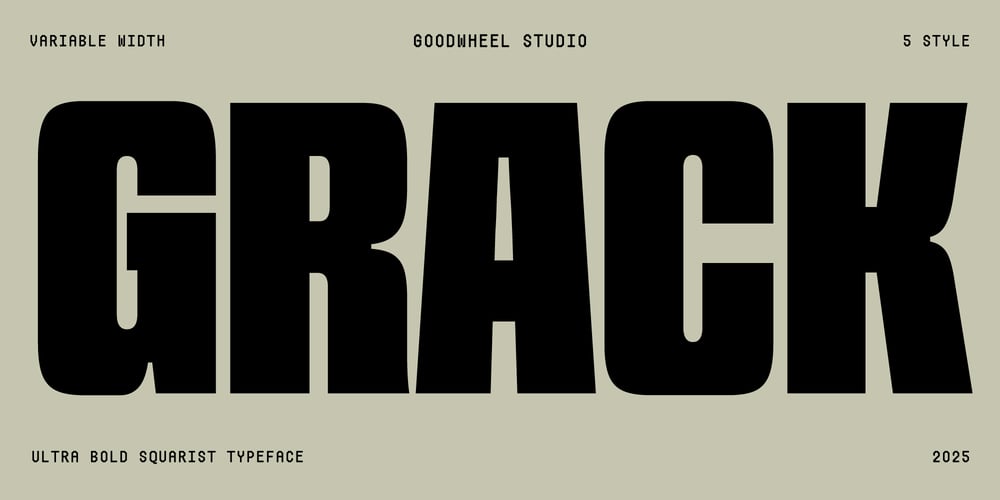
GW Grack
GW Grack font
GW Grack Font Family was designed by Ilham Herry and published by Goodwheel Studio. GW Grack contains 6 styles and family package options. Ultrabold Squarist typefaces with variable width compress to regular. a typeface with a bold and modern design, featuring very thick characters and rigid geometric shapes.Character set : Windows 1252Languages support AfrikaansAlbanianAsuBasqueBembaBenaBretonCatalanChigaCornishDanishDutchEnglishEstonianFaroeseFilipinoFinnishFrenchFriulianGalicianGermanGusiiIcelandicIndonesianIrishItalianKabuverdianuKalenjinKinyarwandaLuoLuxembourgishLuyiaMachameMakhuwa-MeettoMakondeMalagasyManxMorisyenNorth NdebeleNorwegian BokmålNorwegian NynorskNyankoleOromoPortugueseQuechuaRomanshRomboRundiRwaSamburuSangoSanguScottish GaelicSenaShambalaShonaSogaSomaliSpanishSwahiliSwedishSwiss GermanTaitaTesoUzbek (Latin)VolapükVunjoZuluHappy DesigningGoodwheel Studio